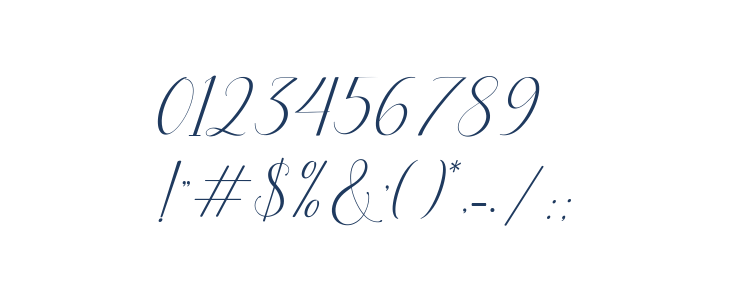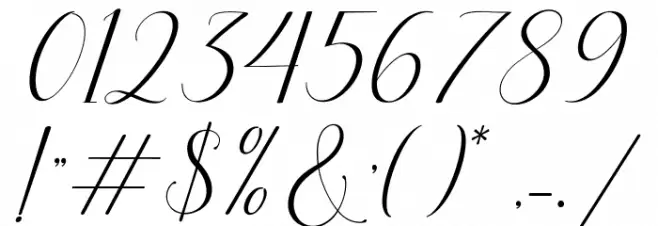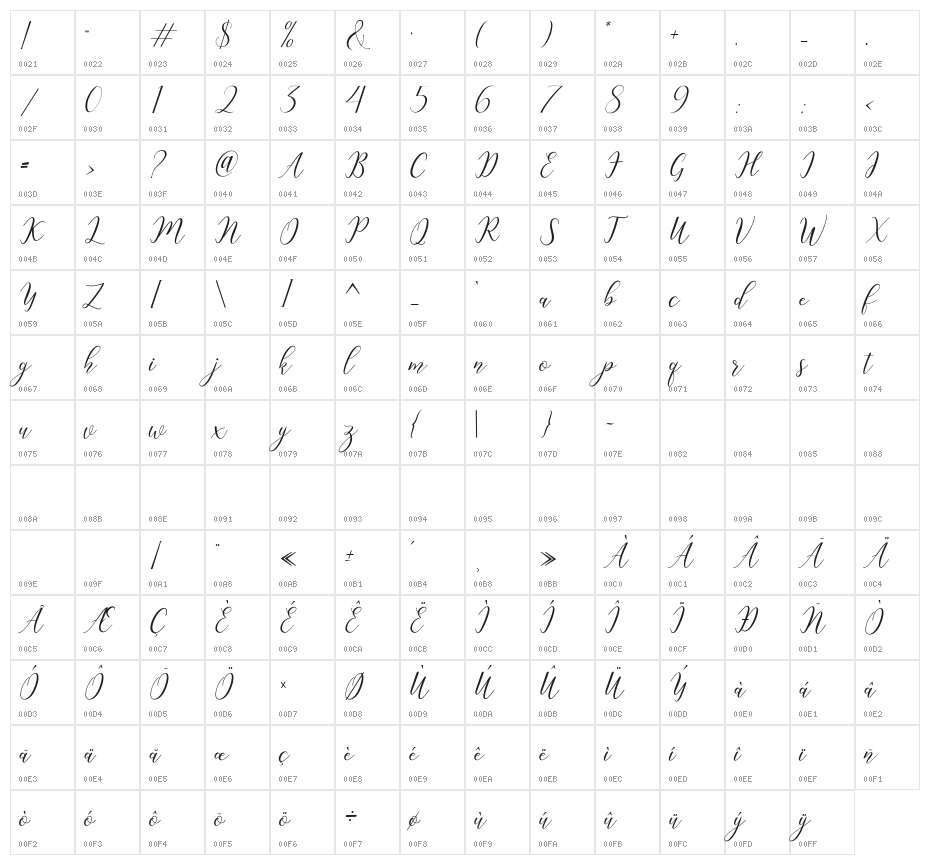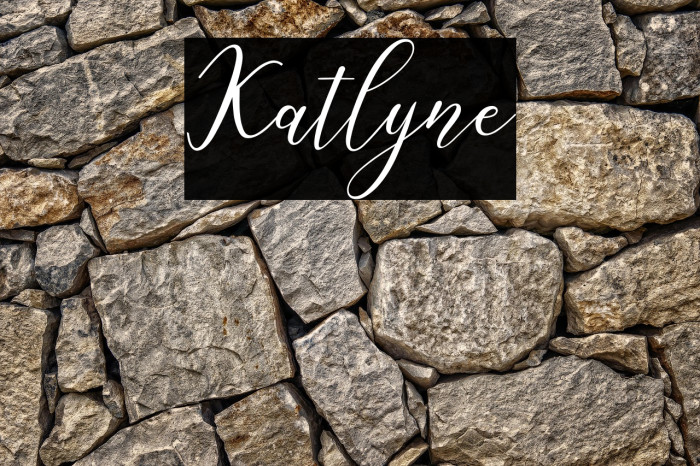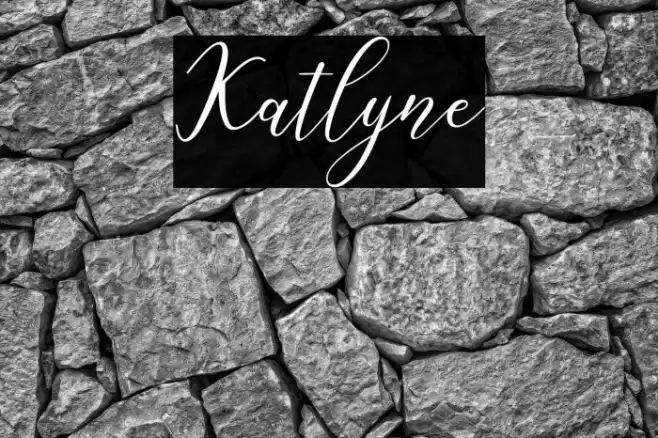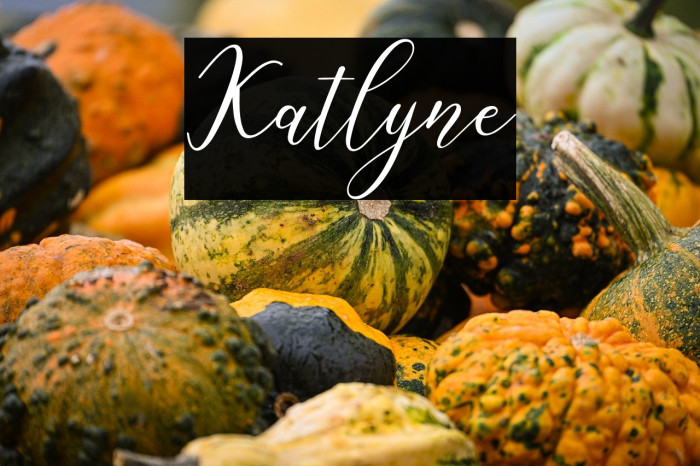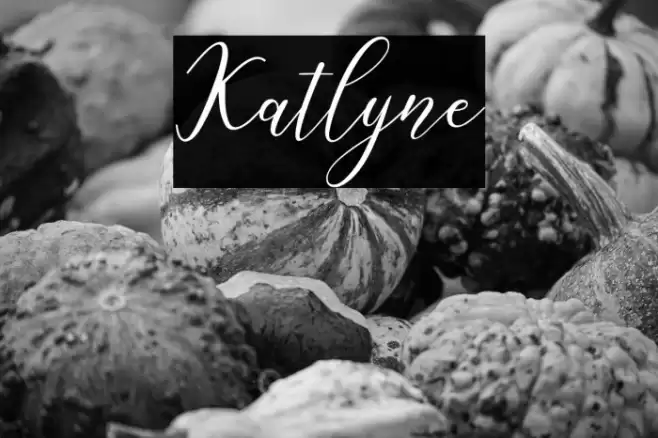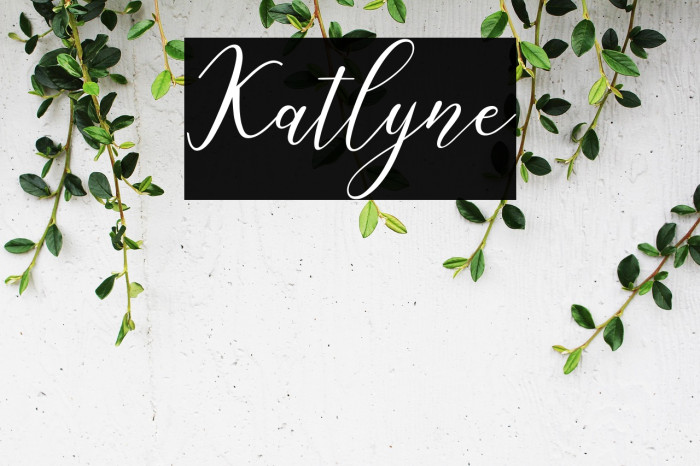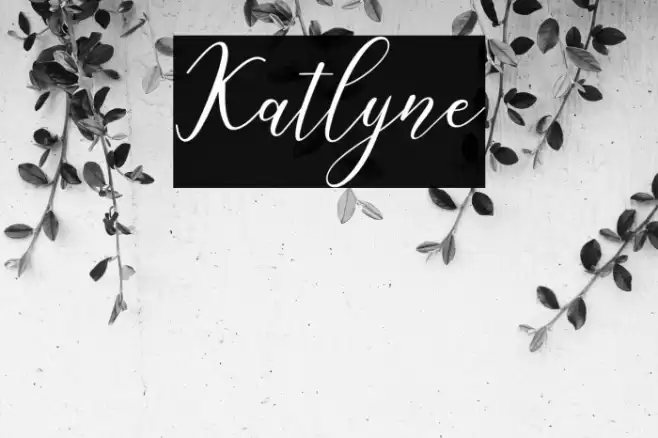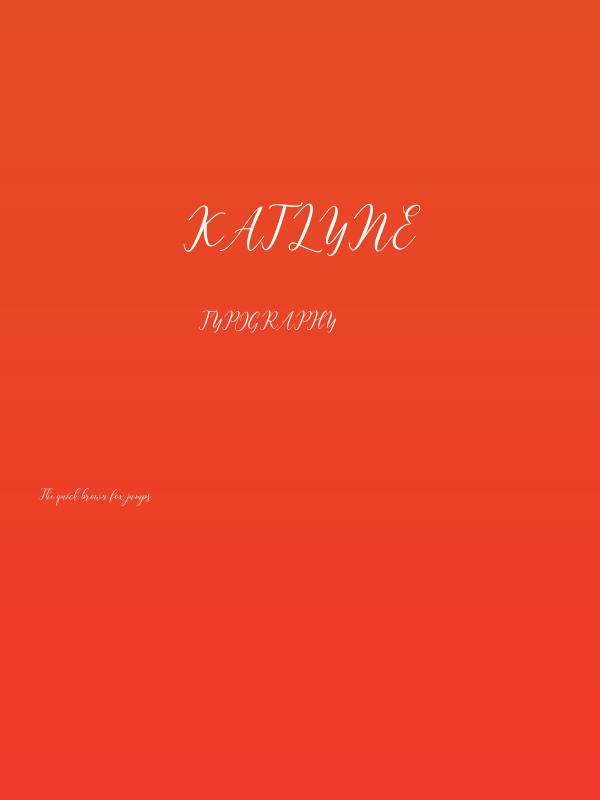
Katlyne Font
Katlyne Description
This elegant script font features fluid, cursive strokes that convey a sense of sophistication and grace. The uppercase letters are characterized by sweeping lines and delicate curves, while the lowercase letters maintain a consistent flow with a slightly more compact form. The numerals are stylishly integrated, maintaining the overall cursive theme. Special characters are thoughtfully designed to complement the alphabet, ensuring a cohesive look across all text. The font's high contrast between thick and thin strokes adds to its refined appearance, making it ideal for formal invitations, branding, and decorative purposes.
| Overall Style | Elegant, Decorative |
| Use Case | Headlines, Logos, Invitations |
| Proposed Projects | Ideal for wedding invitations, luxury branding, elegant signage, and decorative print materials. |